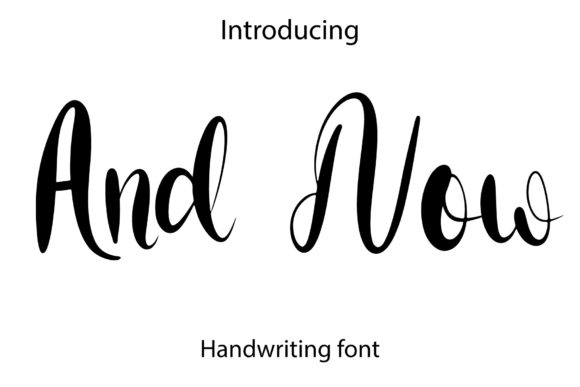
Unleash the Power of And Now Font: A Script of Elegance and Sophistication
Prepare to be captivated by And Now, a script font that spells enchantment in every letterform. Its free-flowing style is a symphony of grace, inviting you to craft designs that are both visually stunning and emotionally resonant.
Whether you're a seasoned designer or a creative spirit seeking distinctive typography, And Now is your muse, ready to transform your vision into reality. Its elegant strokes exude a timeless allure, while its meticulously balanced characters harmonize seamlessly with a myriad of design aesthetics.
Immerse yourself in the world of And Now, where creativity reigns supreme and your imagination knows no bounds. Its versatility shines through in packaging designs, invitation cards that whisper a tale of elegance, flyers that demand attention, mockups that bring ideas to life, event posters that evoke anticipation, and every other canvas where beauty meets purpose.
With And Now at your fingertips, you hold the power to evoke emotions, create lasting impressions, and manifest your artistic brilliance. Let its curves guide your creativity and watch as your designs take on a life of their own.